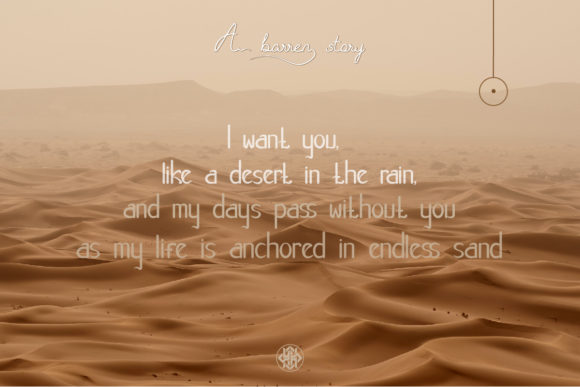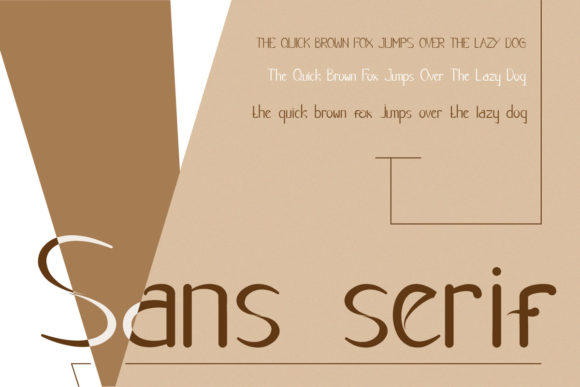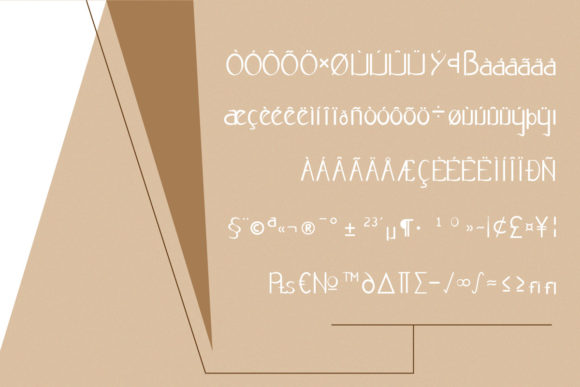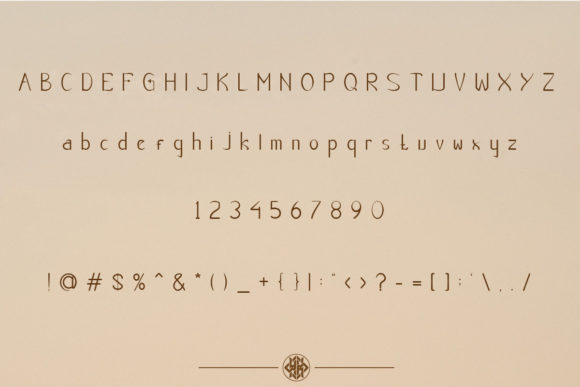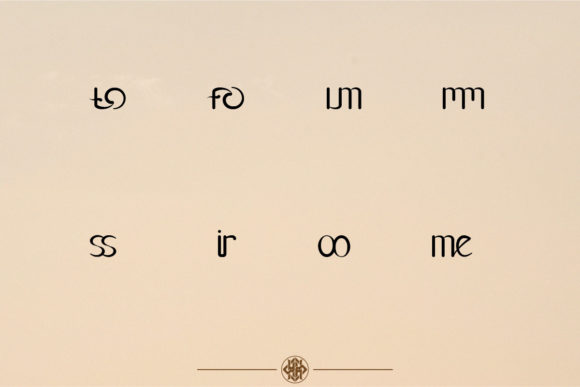
Introduction to Mozzan Font
You’ve spent hours perfecting your design, pouring your heart and soul into every detail. The colors, the textures, the typography – everything is just right. But then, you realize that your design is missing that one special element that sets it apart from the rest. That’s where the Mozzan Font comes in – a sleek and sophisticated sans serif font that can elevate your creative project to the next level.
Whether you’re working on a branding project, a website, or a social media campaign, the Mozzan Font is an invaluable design resource that can add a touch of sophistication and elegance to your design. With its high-quality lines and transparent background, this font is perfect for designers who want to create a clean and minimalist aesthetic that grabs attention.
Key Features of Mozzan Font
- High-quality design resource with a unique, creative touch, perfect for various projects.
- Features a clean and modern design, suitable for use in logos, branding, and other graphic design elements.
Honest Review: Mozzan Font
I recently stumbled upon the Mozzan Font, a free design resource that’s been gaining popularity among designers and creatives. I was excited to dive in and see what it has to offer.
- ✨ High-quality design: The Mozzan Font has a sleek and modern aesthetic that’s perfect for a wide range of creative projects.
- ✨ Transparent background: This feature allows for seamless integration with any background image or color, giving designers more flexibility in their designs.
- ⚠️ Limited font styles: While the Mozzan Font has a modern aesthetic, it’s limited to a single font style, which might not be suitable for projects requiring multiple font variations.
- ⚠️ Not ideal for small text: The font size can become quite large when used in small text contexts, which might affect readability.
Overall, the Mozzan Font is a great addition to any designer’s toolkit, especially for those working on creative projects that require a modern and sleek look. While it has its limitations, it’s definitely worth considering for your next design project.
The Mozzan Font is a high-quality design resource that can elevate your creative project with its unique and stylish typography. To get the most out of this font, follow these steps:
Tips for Getting the Most Out of Mozzan Font
To achieve the best results, use the Mozzan Font with a transparent background to create a clean and modern design. Experiment with different font sizes, colors, and combinations to find the perfect look for your project.
The Mozzan Font is ideal for creative projects, such as graphic design, digital art, and typography-based designs. Its unique style makes it perfect for creating eye-catching headlines, titles, and other text elements.